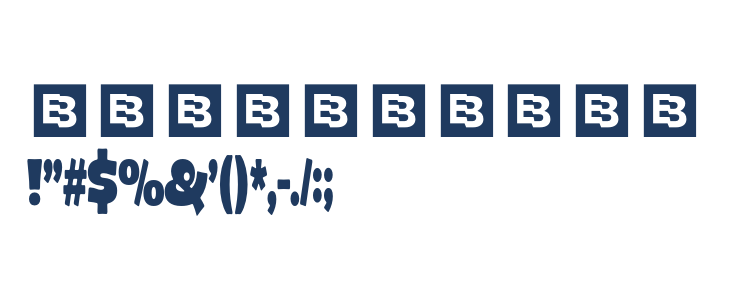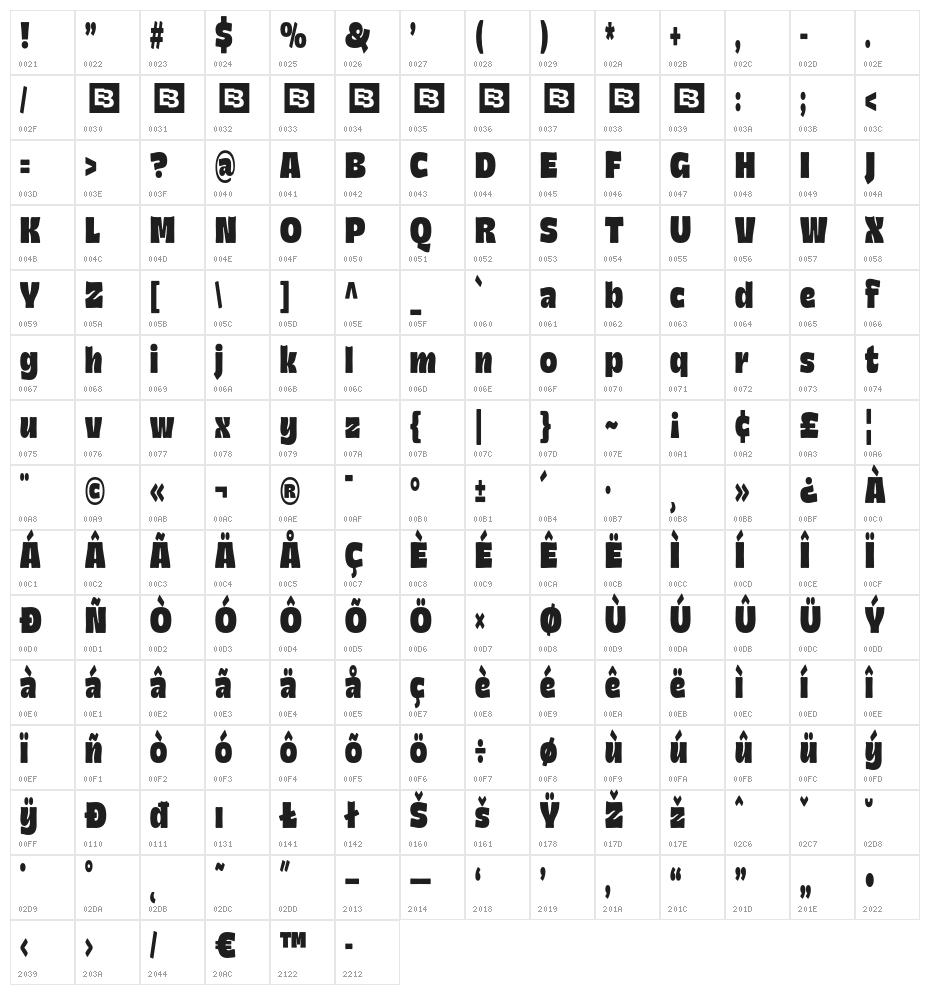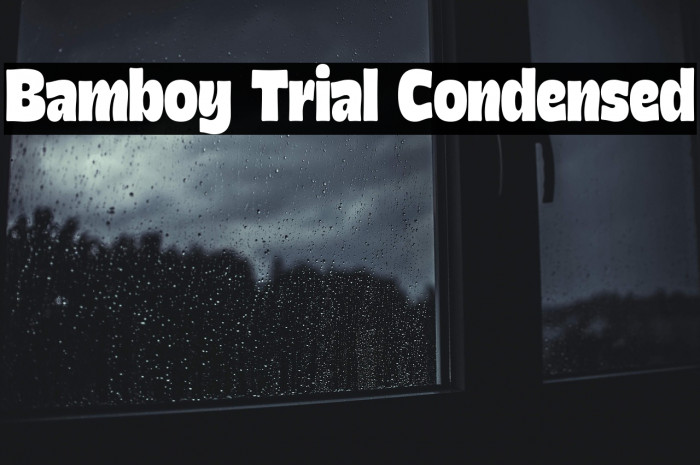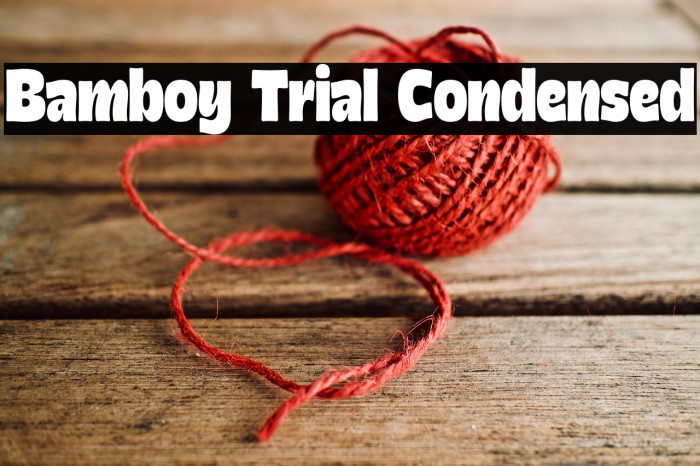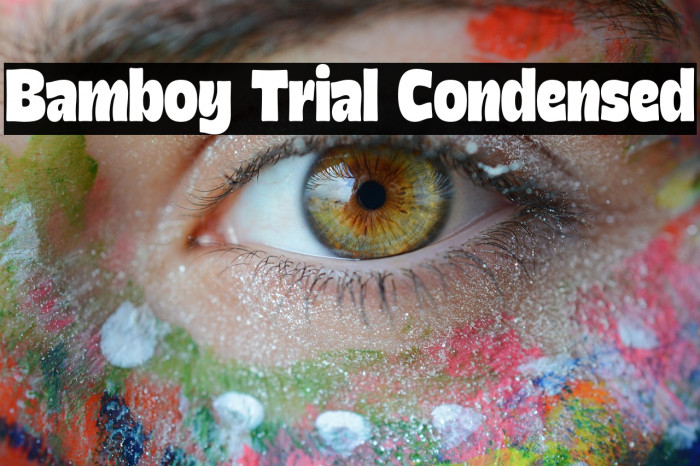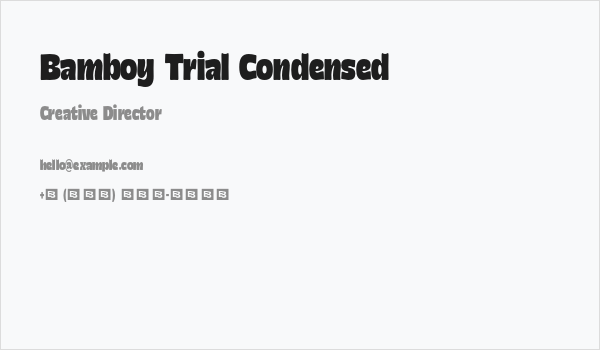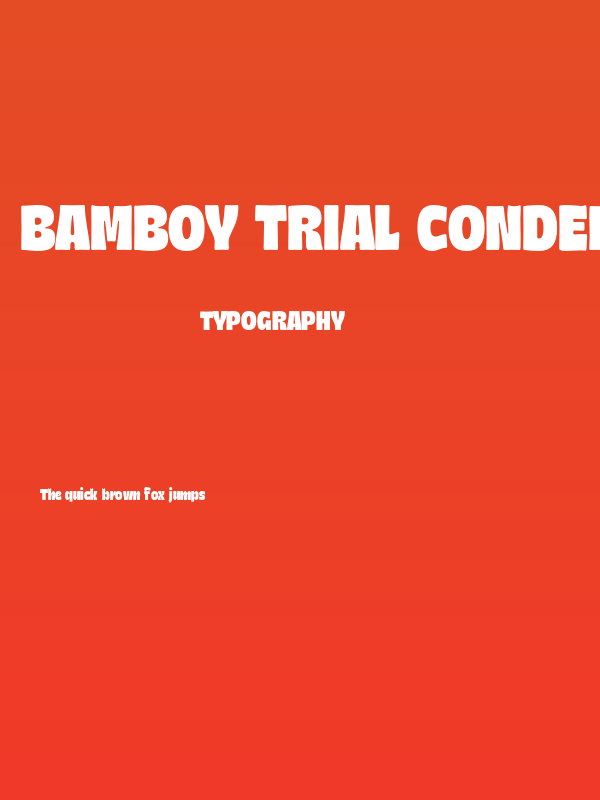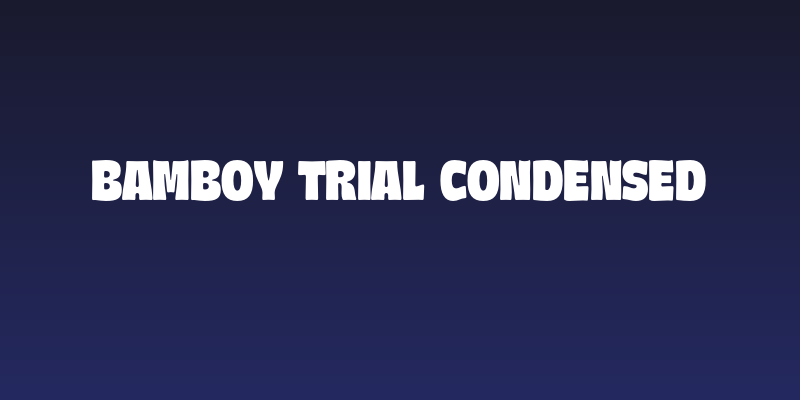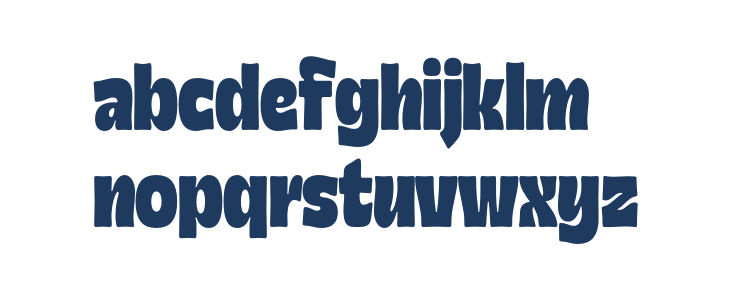
Bamboy Trial Condensed Font
Bamboy Trial Condensed Description
This font features a bold and condensed style with a strong presence, characterized by thick, uniform strokes and a slightly playful, quirky design. The uppercase letters are robust and commanding, while the lowercase letters maintain a consistent weight, offering a harmonious balance. The font includes a comprehensive set of characters, including numbers and special symbols, all maintaining the same bold and condensed aesthetic. The overall design is eye-catching and ideal for making a statement.
| Proposed Projects | Ideal for posters, headlines, branding materials, and any project requiring a bold statement. |